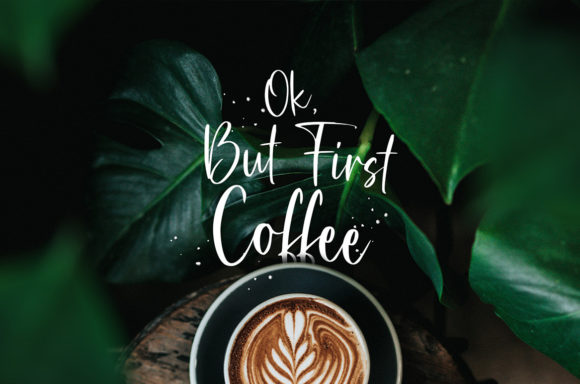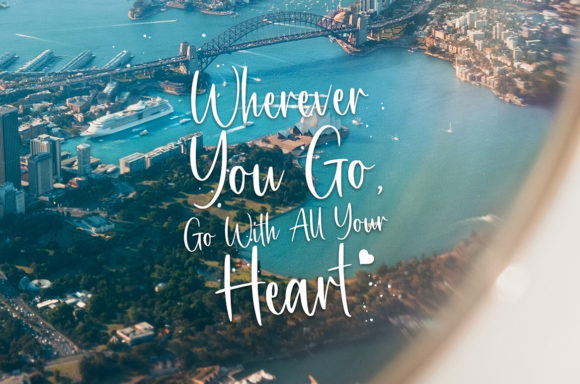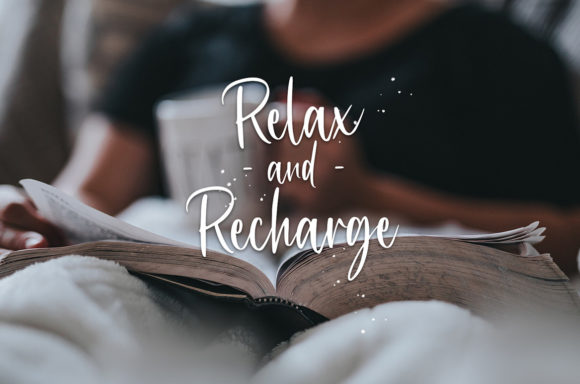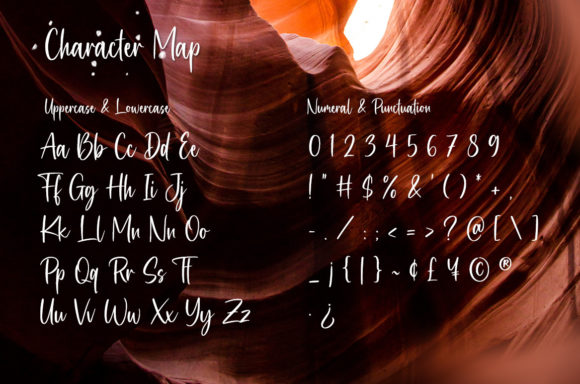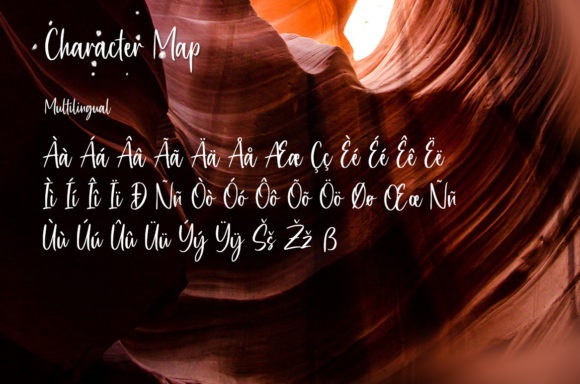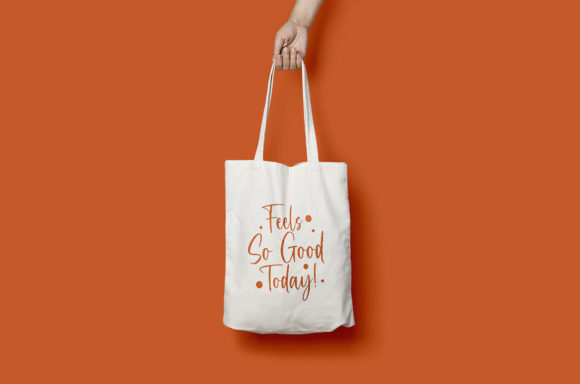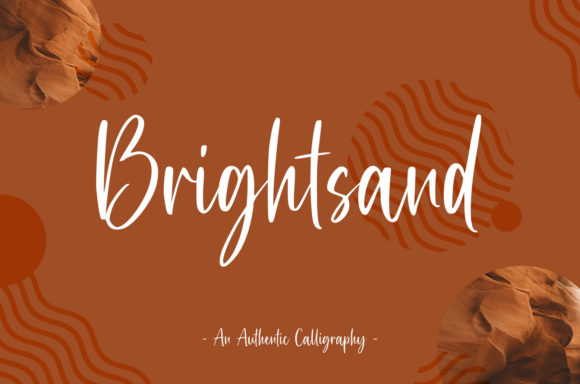
Introducing Brightsand Font: Elevate Your Designs with Elegance and Personality
In the world of typography, a font can make or break a design. For those seeking a touch of elegance and personalization, Brightsand Font is an exceptional choice. This unique and elegant handwritten font is perfect for a variety of designs that require a distinctive style, such as wedding invitations, thank you cards, weddings, greeting cards, logos, and more.
What Makes Brightsand Font Stand Out?
Brightsand Font boasts a distinctive handwritten style that exudes sophistication and charm. Its elegant strokes and beautiful letterforms make it an ideal choice for designers and crafters looking to add a personal touch to their work. Whether you’re creating wedding stationery, branding materials, or greeting cards, Brightsand Font is sure to impress.
Key Features of Brightsand Font
- Unique and Elegant Design: Brightsand Font features a one-of-a-kind handwritten design that’s both elegant and sophisticated.
- Versatile: Perfect for a wide range of designs, including wedding invitations, thank you cards, weddings, greeting cards, logos, and more.
- Handwritten Style: Adds a personal touch to any design, making it perfect for those seeking a distinctive look.
- Easy to Read: Despite its elegant design, Brightsand Font remains easy to read, making it perfect for body text and headlines.
Uses for Brightsand Font
Brightsand Font is incredibly versatile and can be used in a variety of design projects, including:
- Wedding Stationery: Create beautiful wedding invitations, thank you cards, and wedding programs with Brightsand Font.
- Greeting Cards: Add a personal touch to birthday cards, holiday cards, and other greeting cards.
- Branding and Logos: Use Brightsand Font to create unique and memorable logos and branding materials.
- Stationery and Paper Crafts: Perfect for creating custom stationery, journal pages, and other paper crafts.
Tips for Using Brightsand Font
To get the most out of Brightsand Font, here are a few tips:
- Pair with Other Fonts: Combine Brightsand Font with other fonts to create a unique and visually appealing design.
- Use for Headlines and Body Text: Brightsand Font is suitable for both headlines and body text, making it a great choice for a wide range of design projects.
Brightsand Font is a unique and elegant handwritten font that’s perfect for designers and crafters seeking to add a personal touch to their work. With its versatile design and wide range of uses, Brightsand Font is sure to become a favorite in your font collection. Whether you’re creating wedding stationery, branding materials, or greeting cards, Brightsand Font is the perfect choice for those seeking elegance and sophistication.